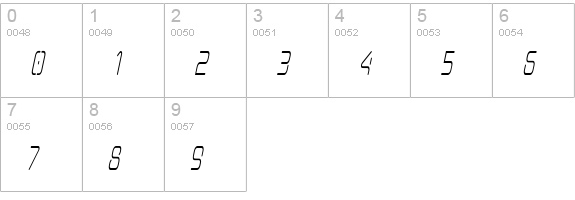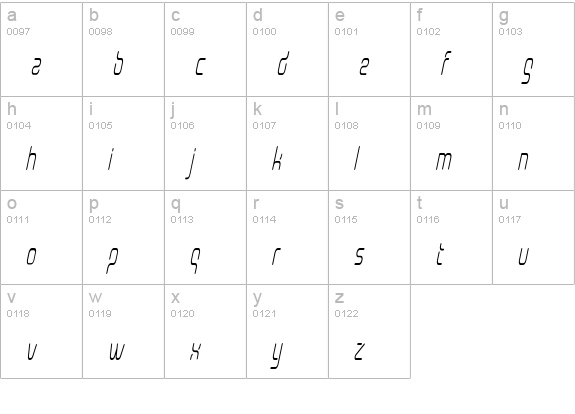
Aunchanted Condense Oblique is a distinctive, italic variant in the Aunchanted typeface family \xE2\x80\x94 well suited to design and typography projects.
Aunchanted Condense Oblique font is a stylish and elegant typeface that exudes sophistication and charm. Its unique design features condensed letterforms with a subtle oblique slant, creating a modern and sleek appearance. Perfect for adding a touch of class to any project, from branding to invitations to logos. What sets Aunchanted Condense Oblique font apart is not only its beauty but also its versatility. Whether you're looking to create a professional presentation or a whimsical greeting card, this font has you covered. Its legibility and readability make it suitable for a wide range of design applications. And the best part? Aunchanted Condense Oblique font is available for free download at FontsMarket.com. Now you can elevate your designs without breaking the bank. Don't miss out on this opportunity to add a touch of magic to your projects with this stunning font.